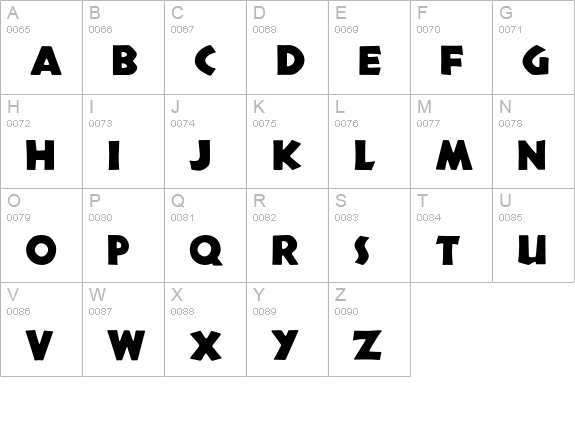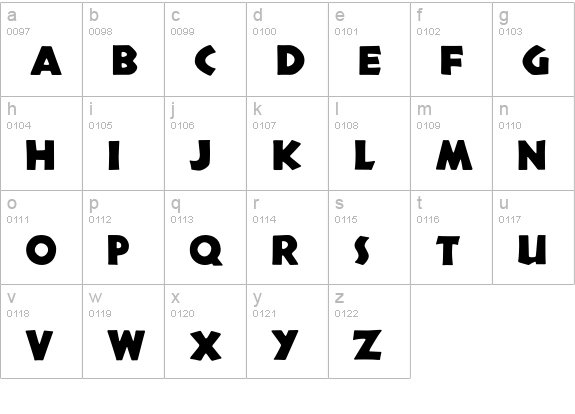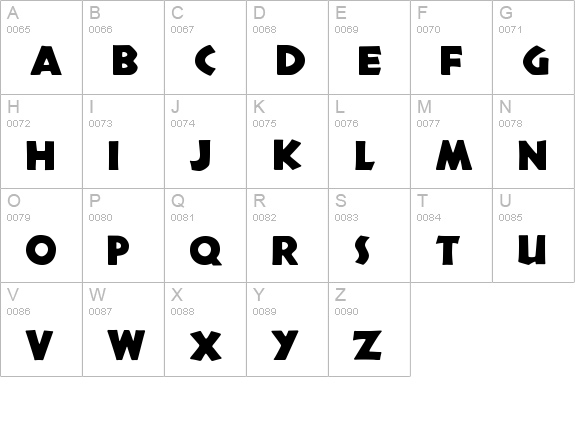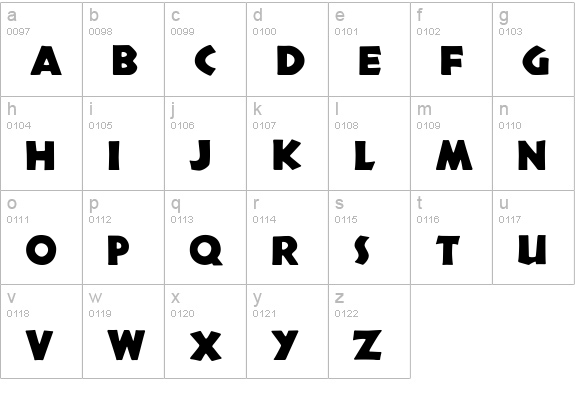
Neuland-Solid font is a bold and impactful typeface that exudes strength and modernity. With its distinctive geometric shapes and sharp edges, Neuland-Solid commands attention and makes a statement in any design project. This versatile font is ideal for headlines, logos, posters, and other display purposes where you want to make a bold impression. The best part? Neuland-Solid font is available for free download at FontsMarket.com. This means you can easily access this dynamic font and incorporate it into your projects without any cost. Whether you're a graphic designer, artist, or simply someone looking to add a touch of sophistication to your work, Neuland-Solid font is the perfect choice for creating visually striking designs. Download it today and unleash your creativity with this eye-catching typeface.